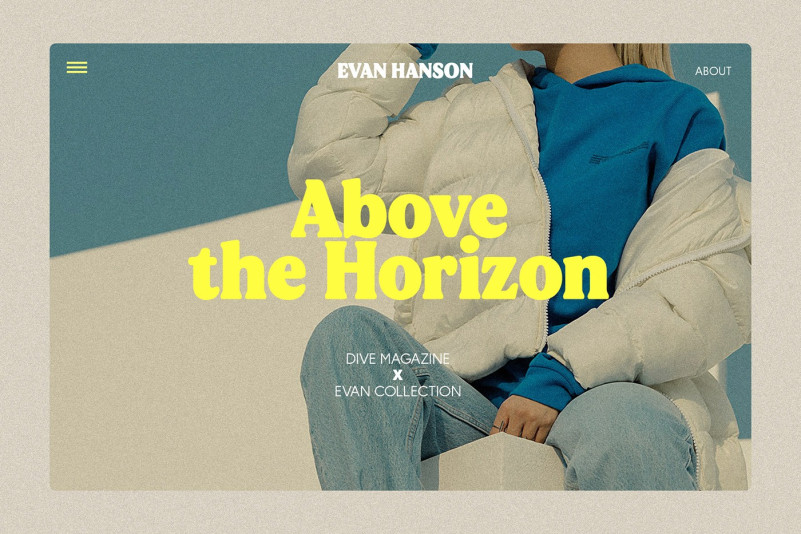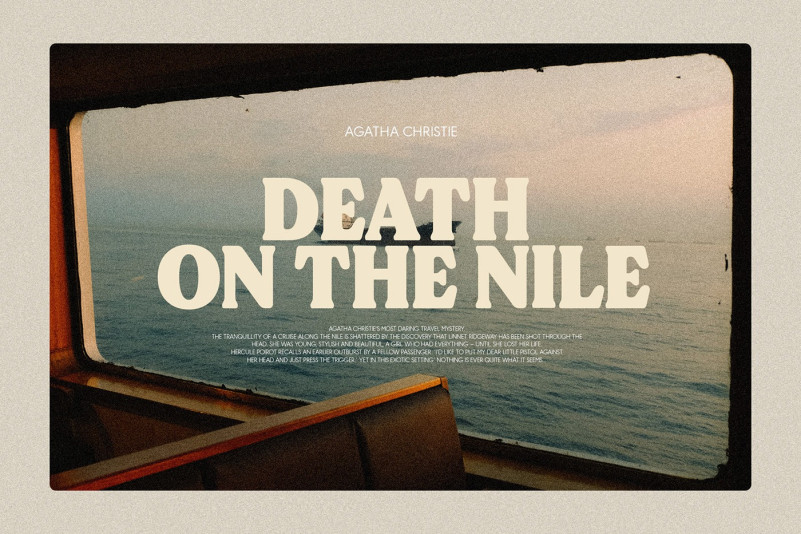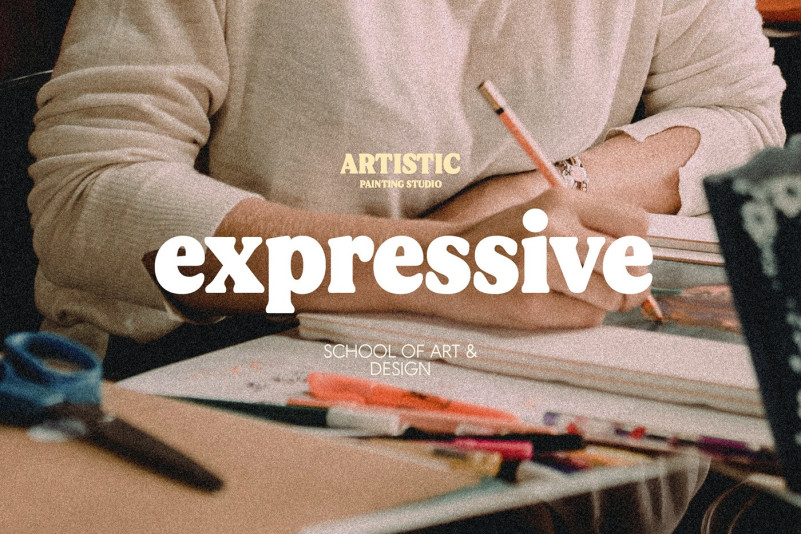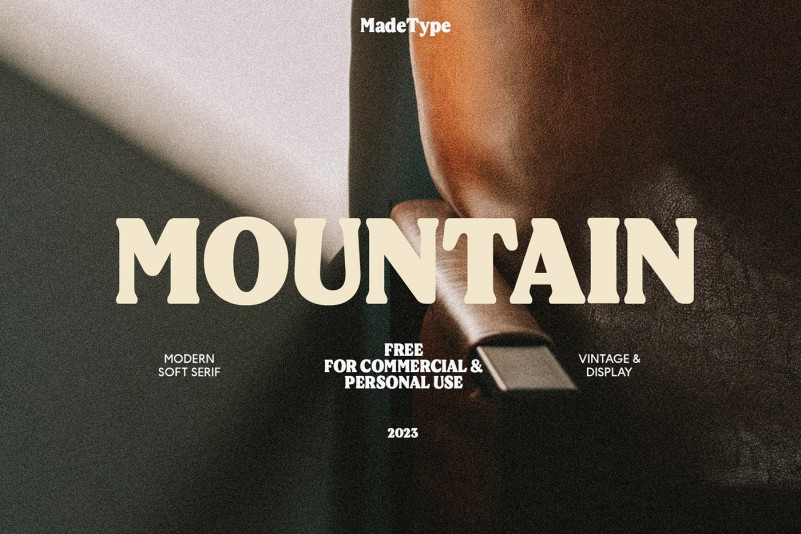
Mountain Font
Mountain Serif Font is a free retro serif font inspired by classic sixties and seventies bold typeface, comes with alternate and ligature make this font more stylish with retro style.